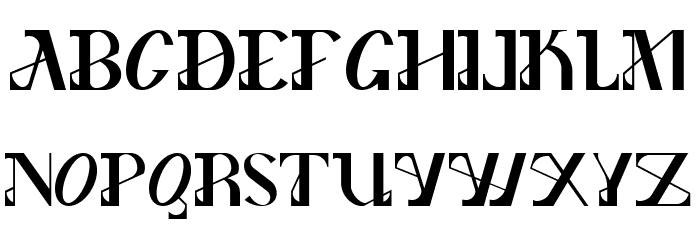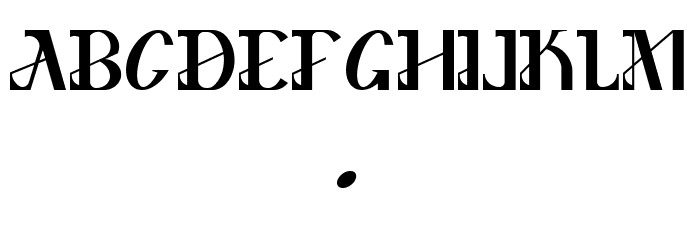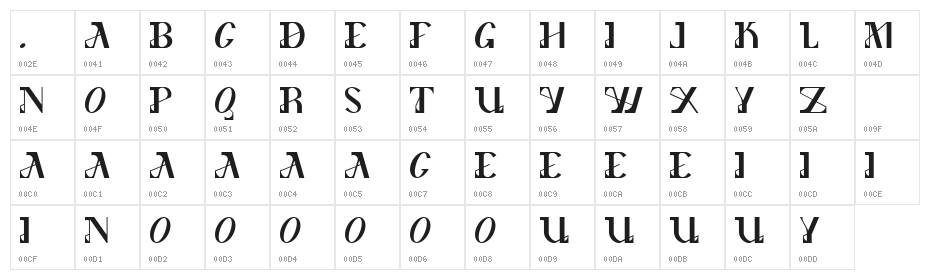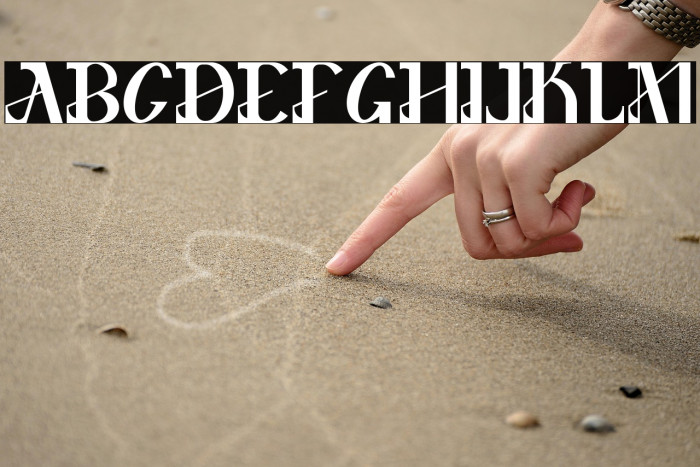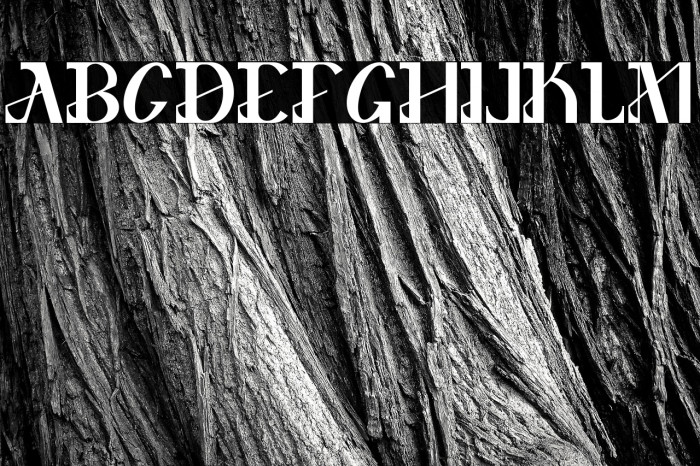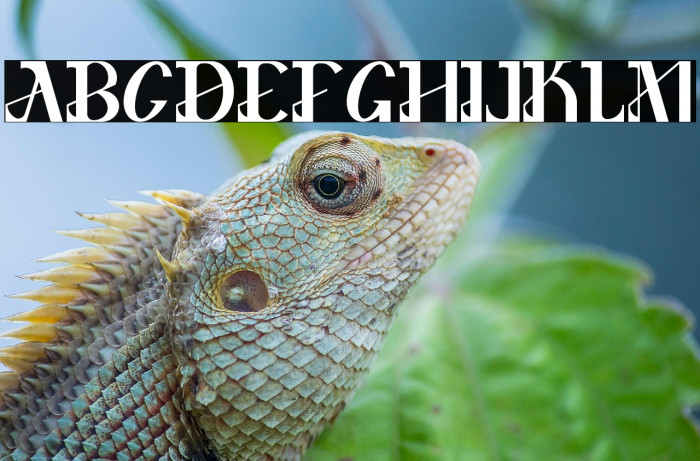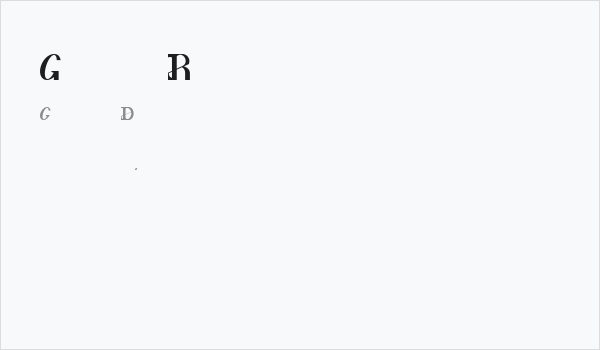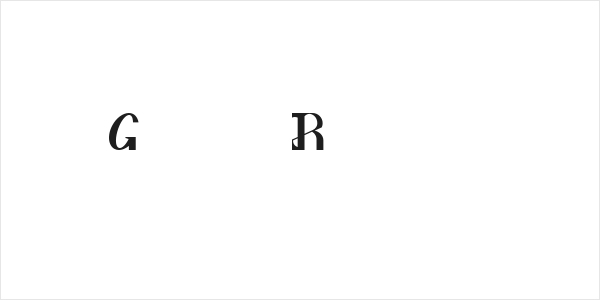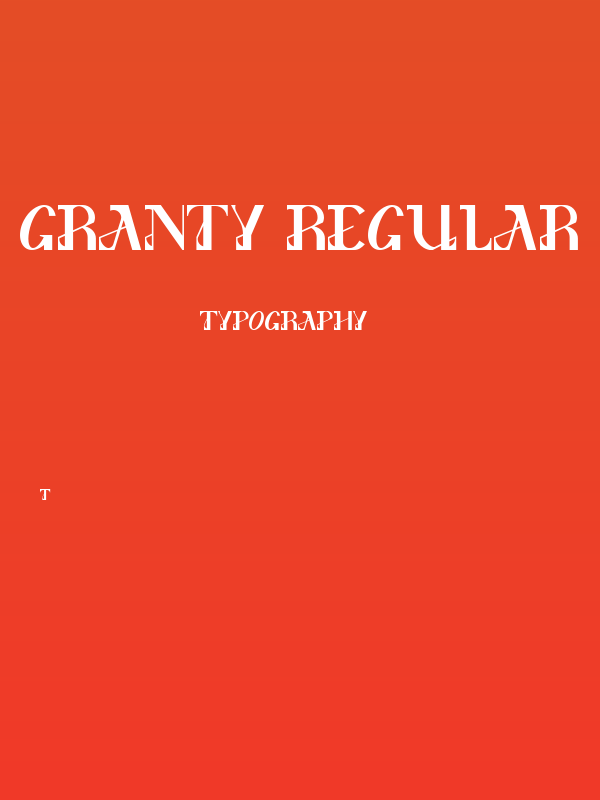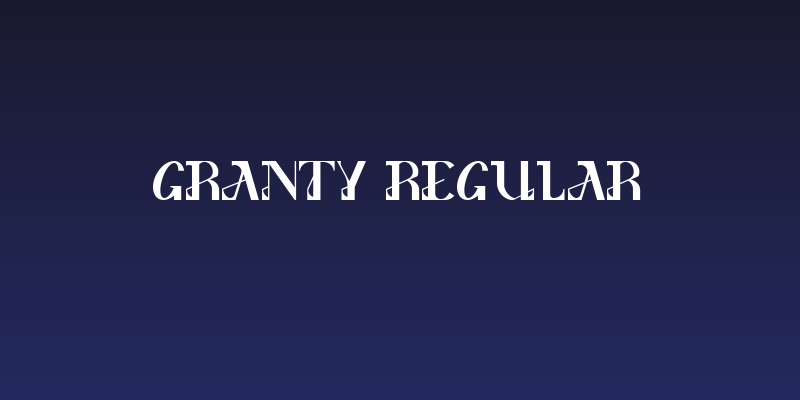
Granty Regular Font
This font features a unique and artistic design with a decorative flair. Each character is crafted with intricate details, incorporating geometric shapes and sharp angles that give it a modern and edgy appearance. The uppercase letters are particularly striking, with a bold presence that commands attention. The font maintains a consistent weight throughout, ensuring readability while still offering a distinctive style. Its creative elements make it suitable for projects that require a touch of sophistication and originality.
A decorative font with geometric shapes and sharp angles, offering a modern and edgy style.
- Proposed Projects: Ideal for branding, poster design, album covers, and any project that benefits from a bold and artistic typeface.